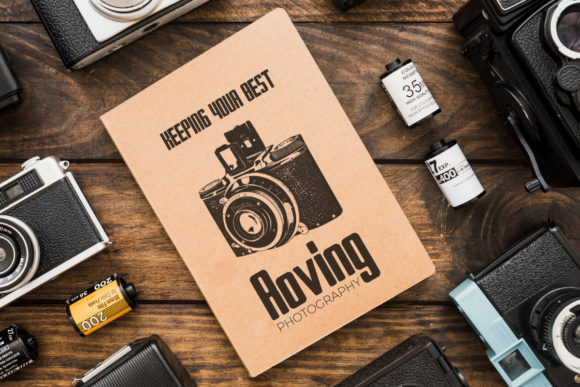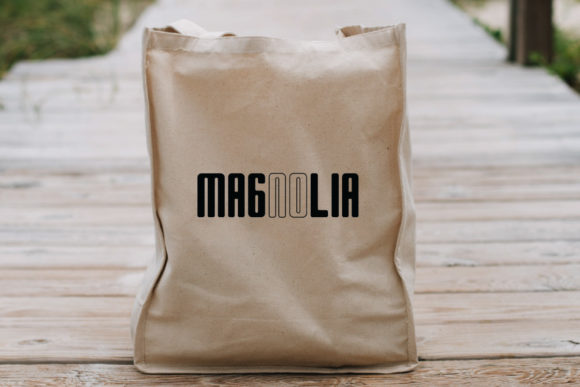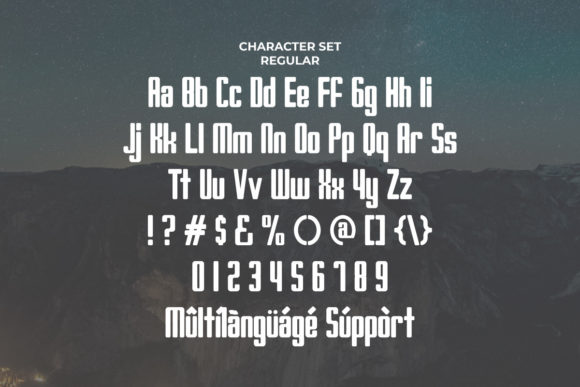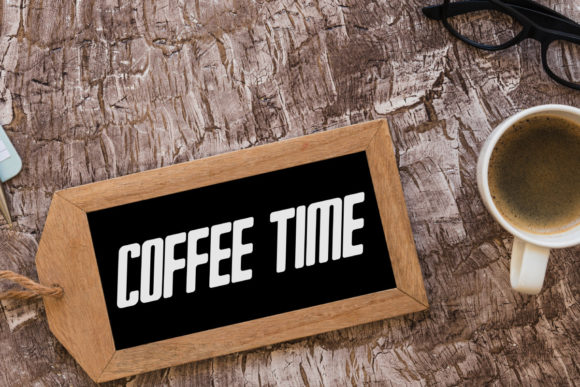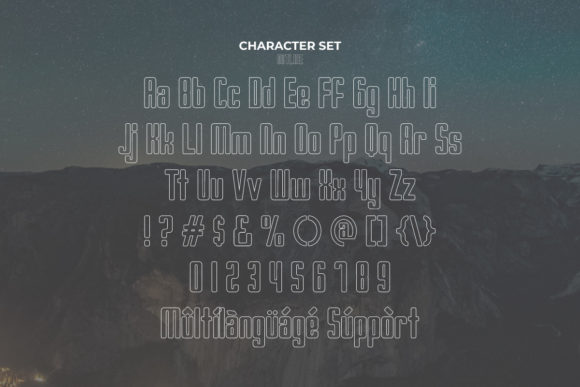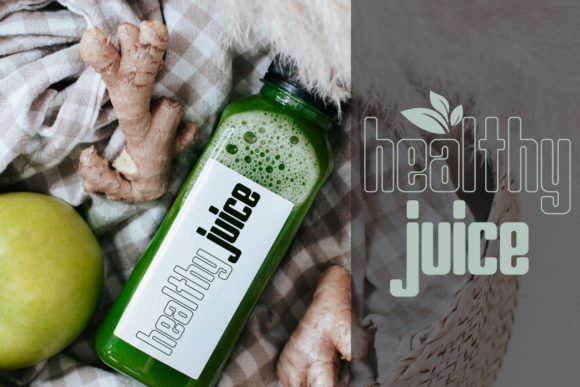
Introduction to Panoramatic Font
Have you ever stared at a blank canvas, eager to bring your creative vision to life, only to be hindered by a lack of inspiration? It’s a familiar feeling for many designers, but what if we told you that the perfect design resource was just around the corner? Enter the Panoramatic Font, a stunning, vintage-styled display font that’s about to revolutionize your creative project.
This high-quality font is more than just a pretty face; it’s a valuable addition to any designer’s library. With its unique, squared lettering and cool aesthetic, the Panoramatic Font has the power to elevate any creation, from a simple logo to a complex design. And the best part? It’s available for free download, making it a transparent background of creative possibilities.
Whether you’re a seasoned pro or just starting out, the Panoramatic Font is an absolute must-have. Its versatility and style make it the perfect design resource for any project, and we can’t wait to see what you create with it.
Key Features of Panoramatic Font
- High-quality design resource ideal for creative projects, offering a unique and stylish touch.
- Unique characteristics include its modern and elegant design, making it a great choice for various creative projects.
Honest Review: Panoramatic Font
As a designer, I’m always on the lookout for high-quality design resources that can elevate my creative projects. Recently, I had the chance to work with the Panoramatic Font, and I must say, it’s been a game-changer.
- ✨ Unique and modern design aesthetic that’s perfect for contemporary creative projects
- ✨ High-quality fonts that are perfect for both digital and print designs
- ✨ Transparent background, making it easy to use with any design
- ⚠️ Limited font variations, which might not be ideal for projects that require a wide range of font styles
- ⚠️ Not ideal for projects that require a lot of text, as the font can be quite busy
Overall, I’m really impressed with the Panoramatic Font. It’s a great addition to any designer’s toolkit, and I would definitely recommend it to anyone looking for a modern and high-quality font. With its transparent background and free download, it’s a transparent and accessible design resource.
The Panoramatic Font is ideal for a variety of creative projects, including:
- Graphic design projects.